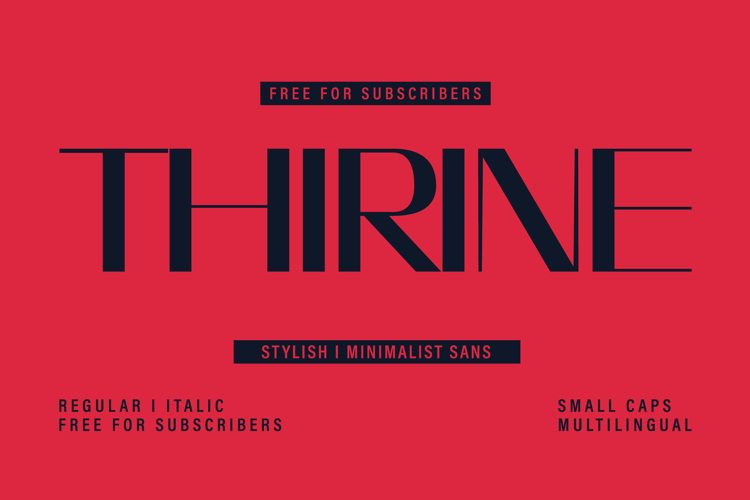
THIRINE Font
๐จ Font Name: THIRINE by Minimalist Art Studio
๐จ Font Description: THIRINE is a sleek minimalist sans serif with stylish curves, small caps, italics, and multilingual supportโperfect for modern branding.